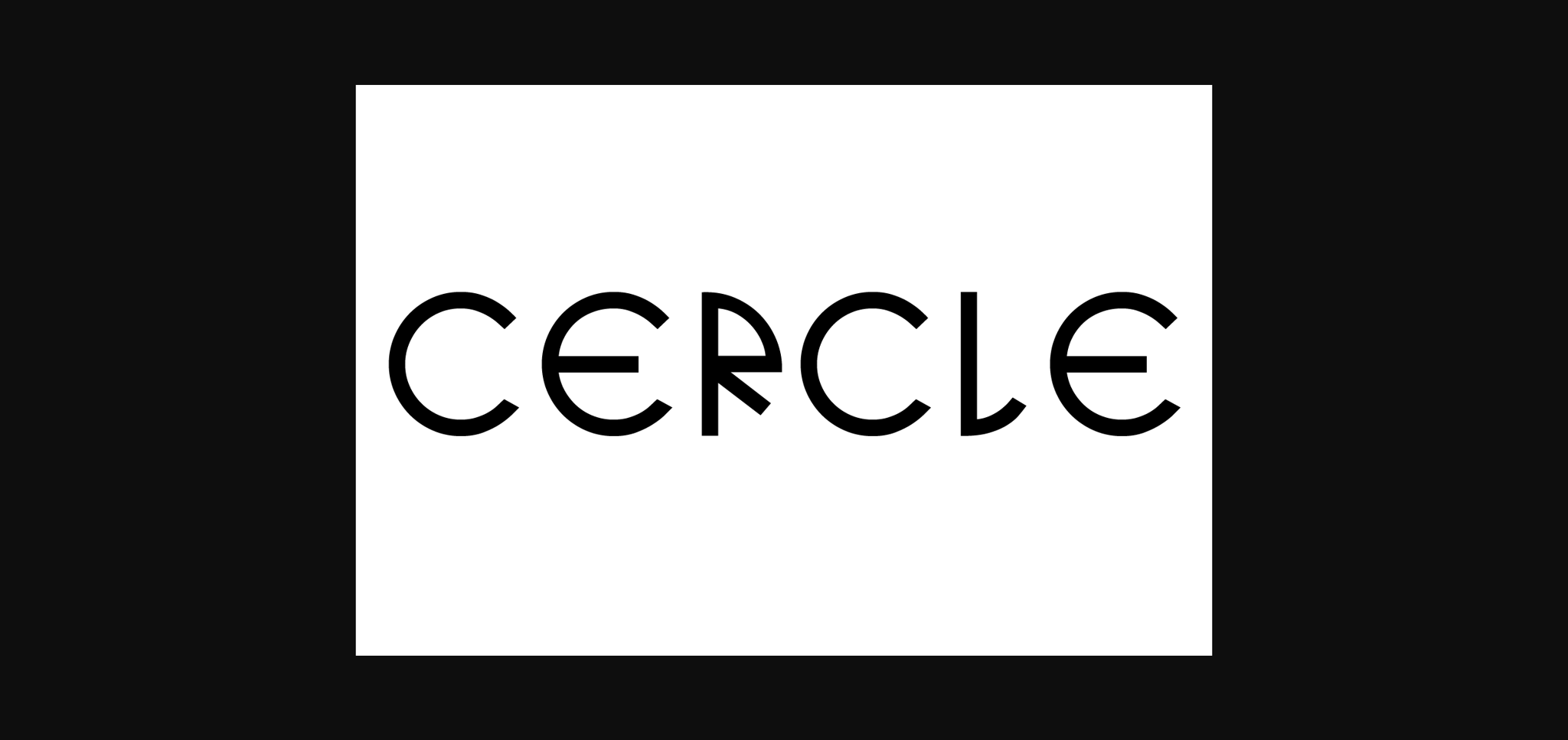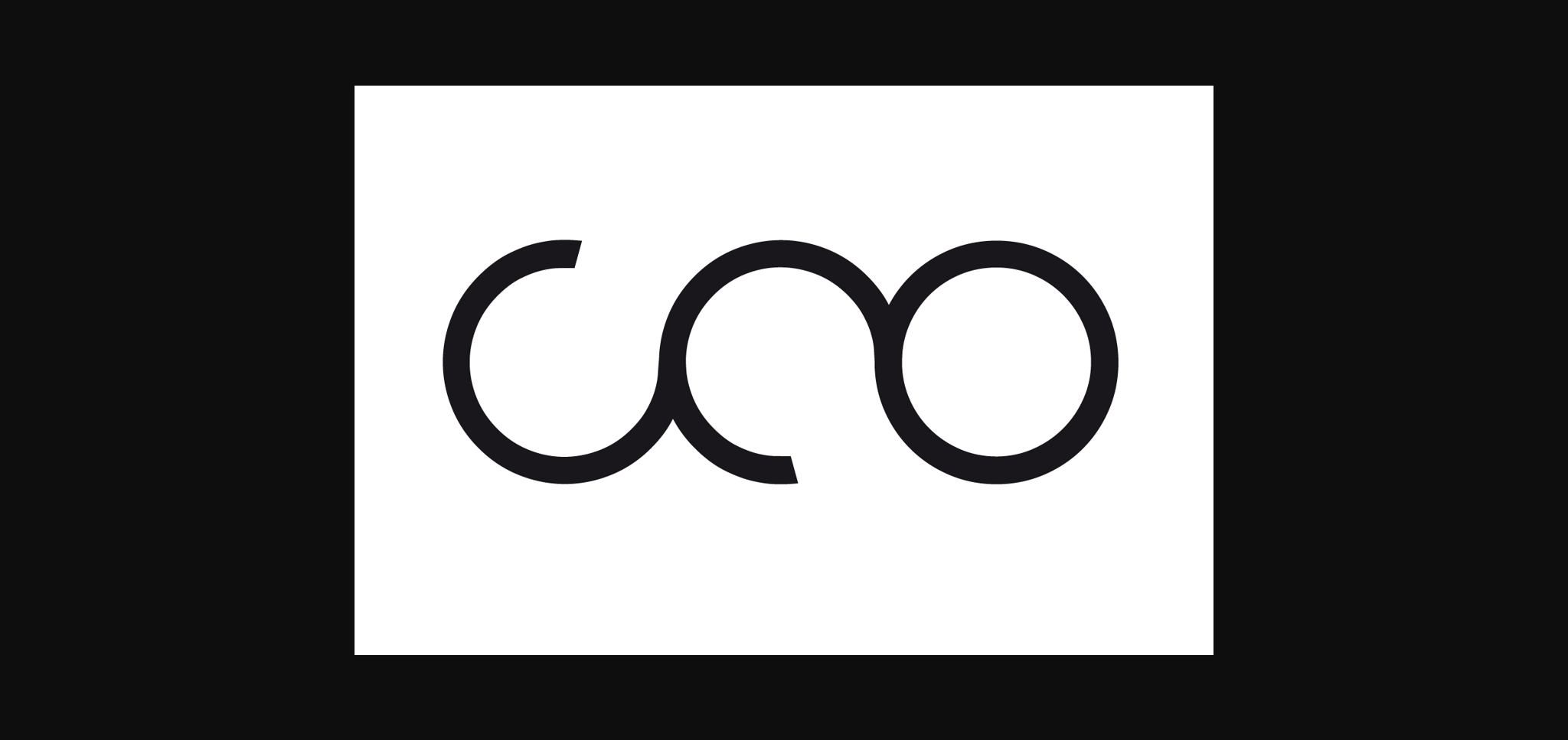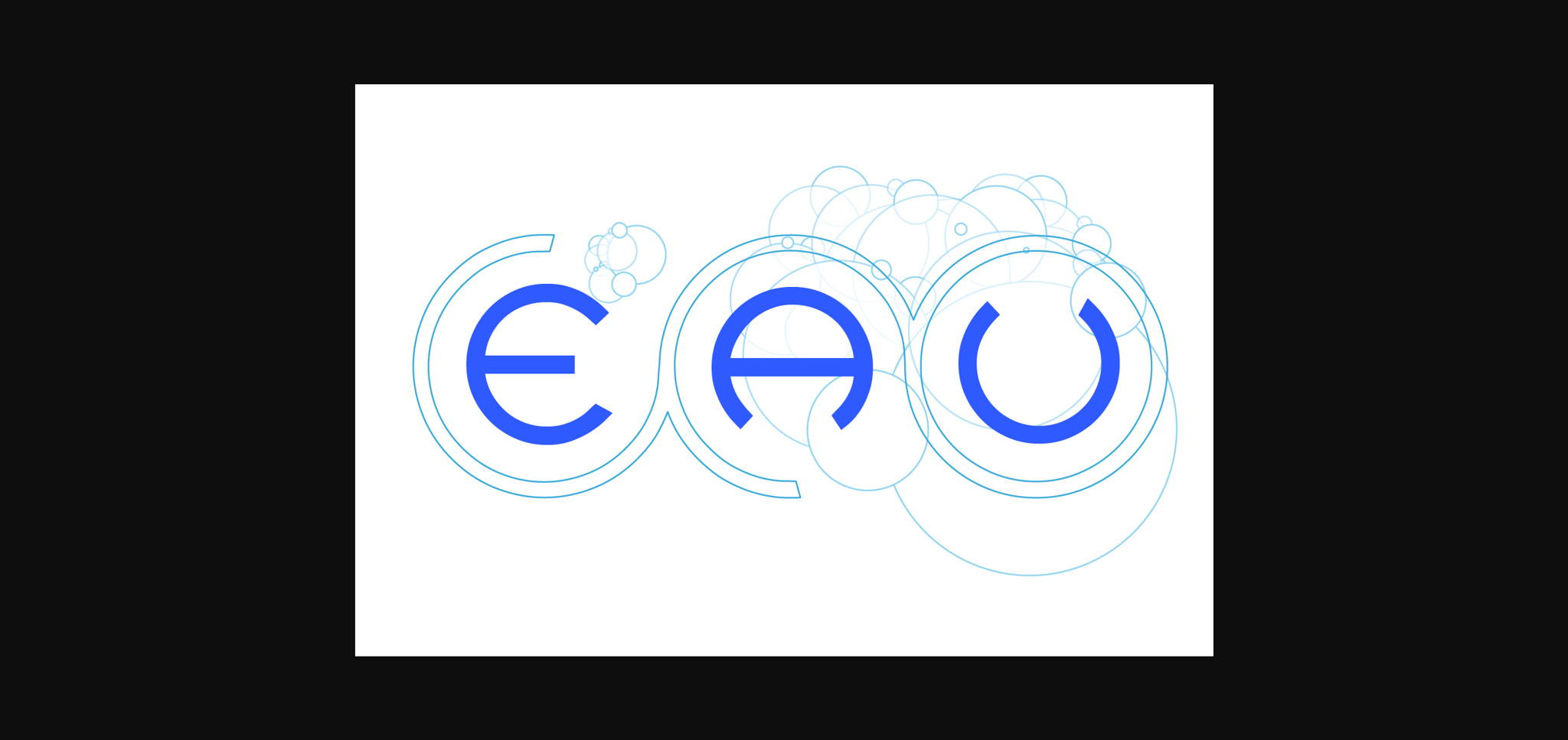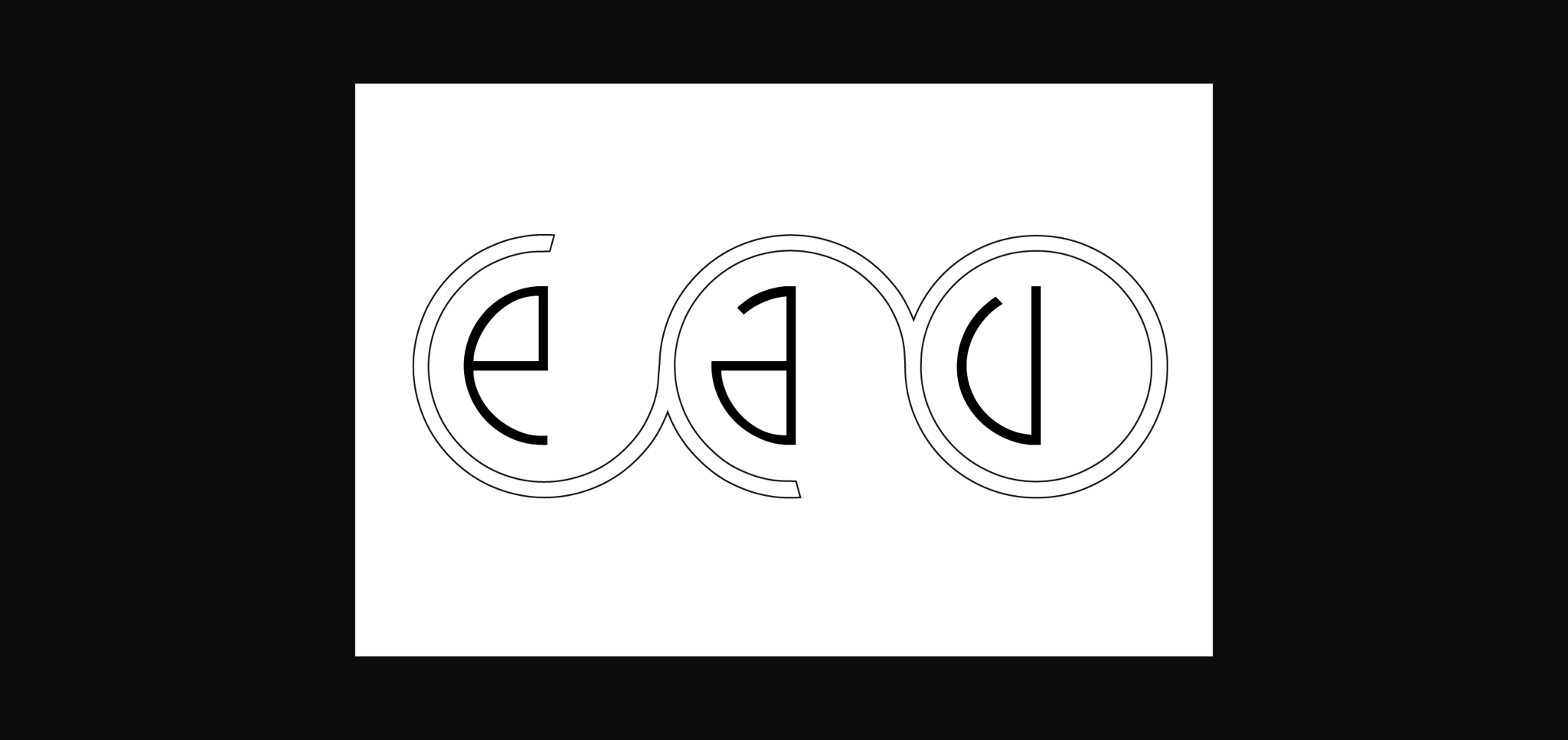
About Cercle Font
This futuristic, experimental font is based circles for the capitals letters, and semicircles for the lower case characters. Inspired by the countdown shown before a movie: 5, 4, 3, 2… 1!